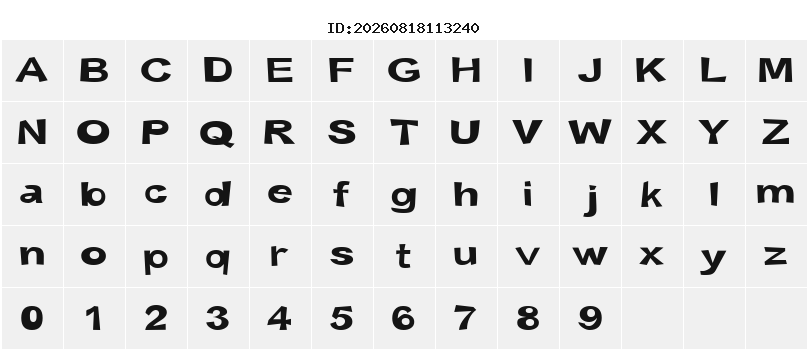
Snott 2000 Preview
• Font Name: Snott 2000
• Font ID: Snott 2000
• Full Font Name: Snott 2000 Bold
• Version: 2.00a
• PostScript Name: Snott2000Bold
• Character Count: 223
About Snott 2000.ttf
Snott 2000.ttf is a modern, elegant sans-serif font designed for ultimate readability and visual harmony. Perfect for branding, headlines, web design, and print materials.